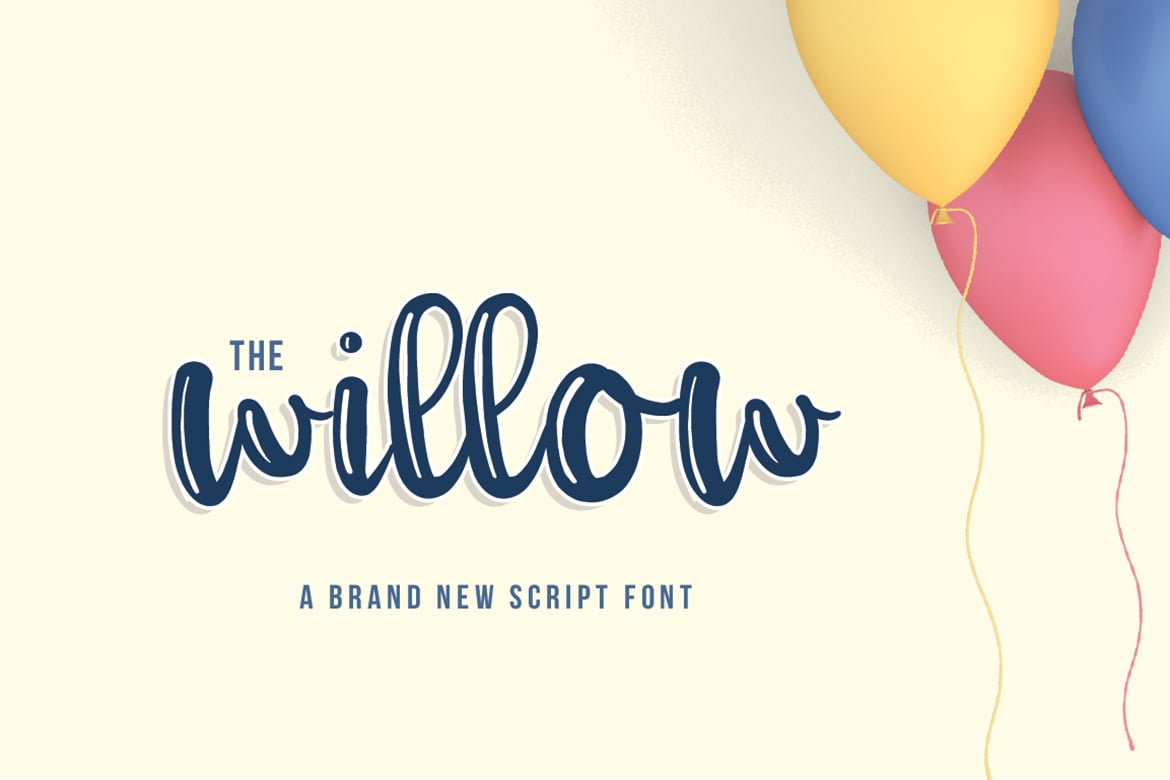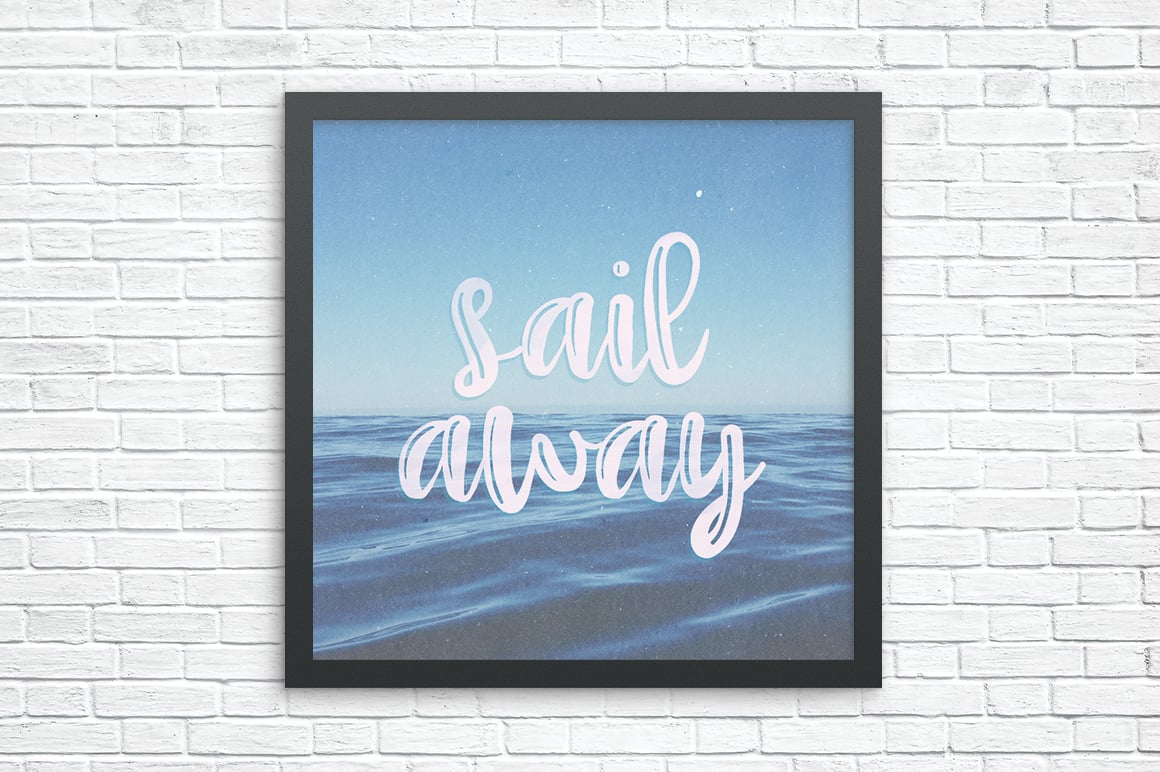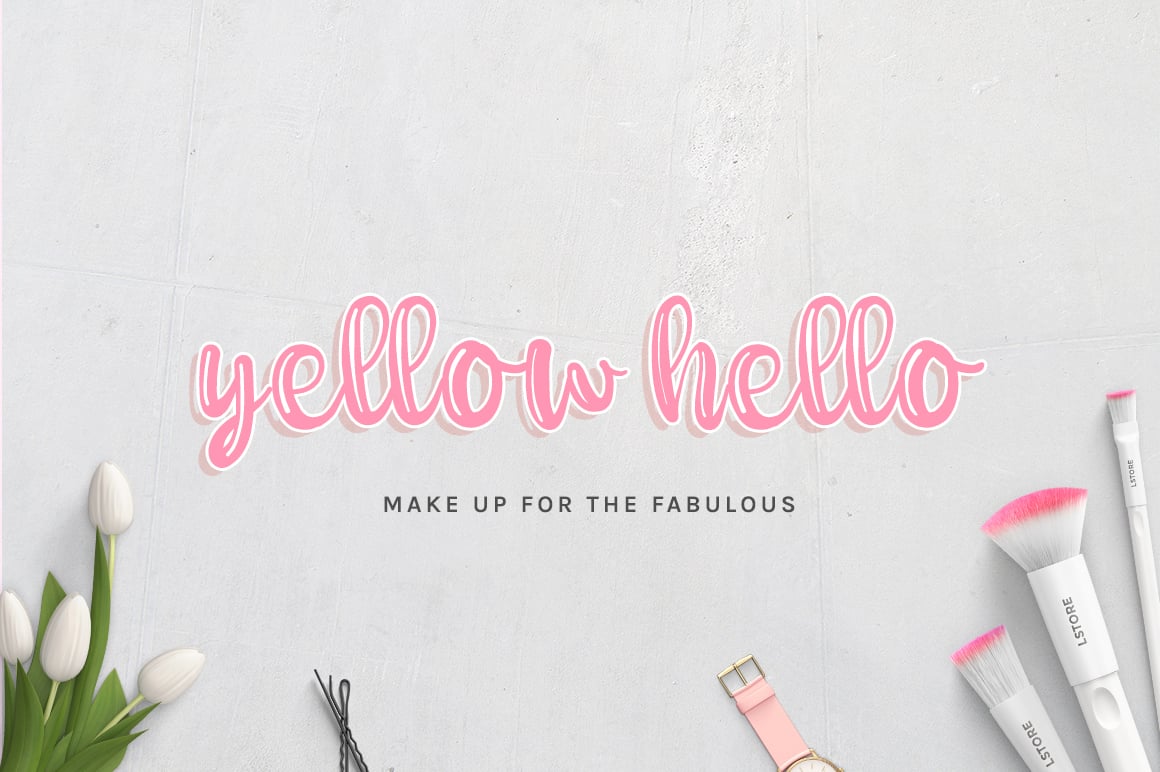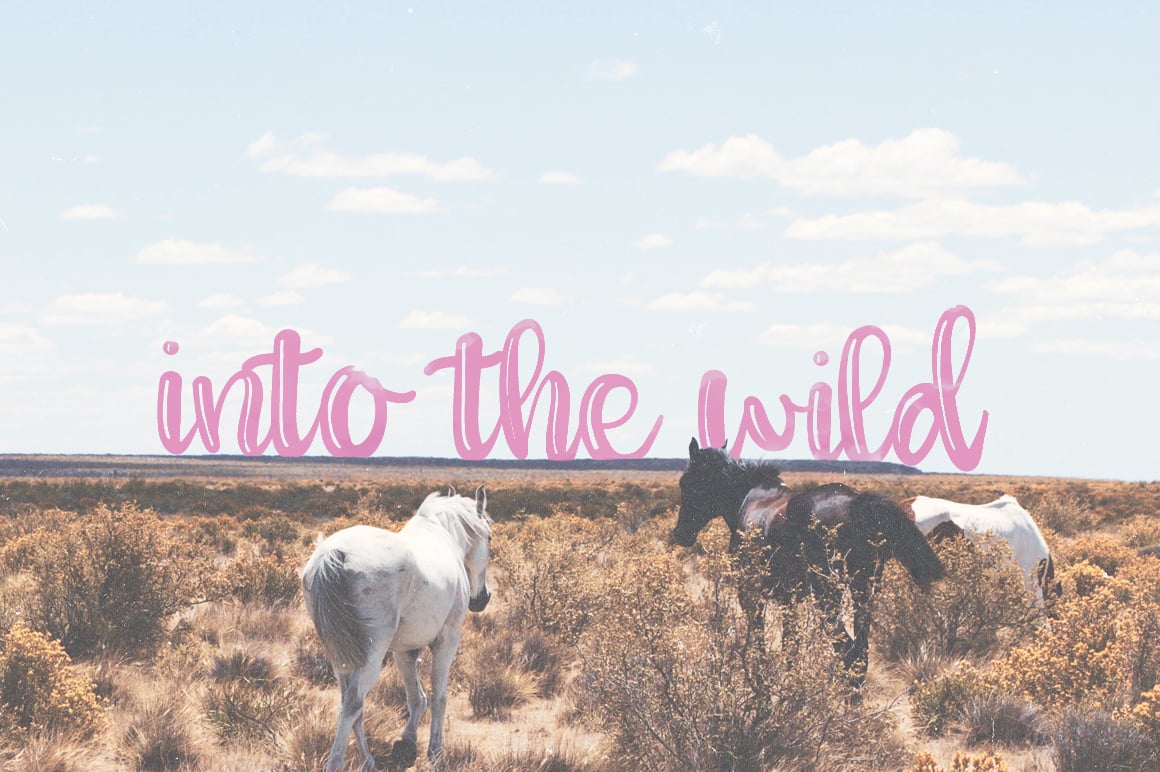
Willow Font
The Willow Script is a brand new thick curly script font, including a transparent shadow within each character. As well as a range of alternate characters and ligatures, that are 100% accessible to all. Available for both personal and commercial use. No extended license is required. Download and use The Willow Script for anything and everything.